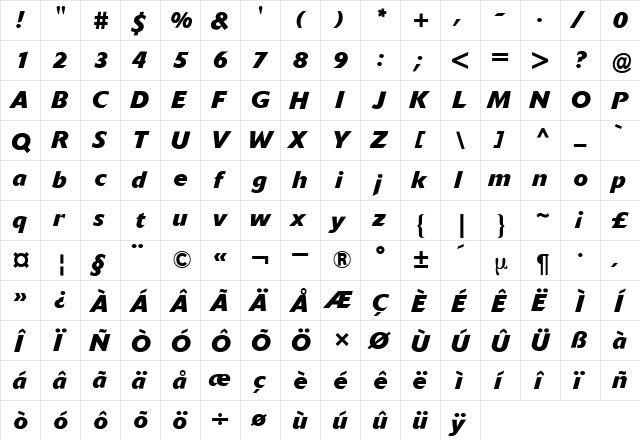
Delta BQ ItalicBold Font Preview
Delta BQ ItalicBold
Design Context for Delta BQ Typeface
Delta BQ is a composed and adaptable typeface that performs quietly and consistently across a wide range of design contexts. Its italic angle brings a sense of urgency and motion to the letterforms. The heavy weight commands attention and anchors typographic hierarchies.
Pro Tip: Try Delta BQ for annotation and caption copy alongside an upright companion — the contrast in angle creates a dynamic but ordered typographic system.